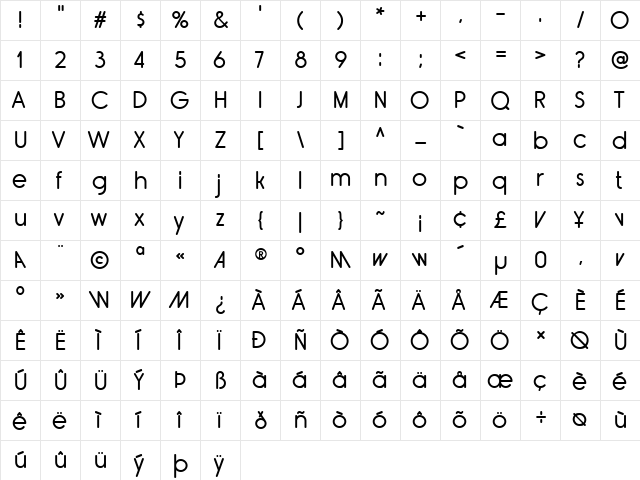
Rimouski Regular Font Preview
Rimouski Regular
Rimouski Regular Font Details
Design Context for Rimouski Typeface
Rimouski is a composed and adaptable typeface that performs quietly and consistently across a wide range of design contexts.